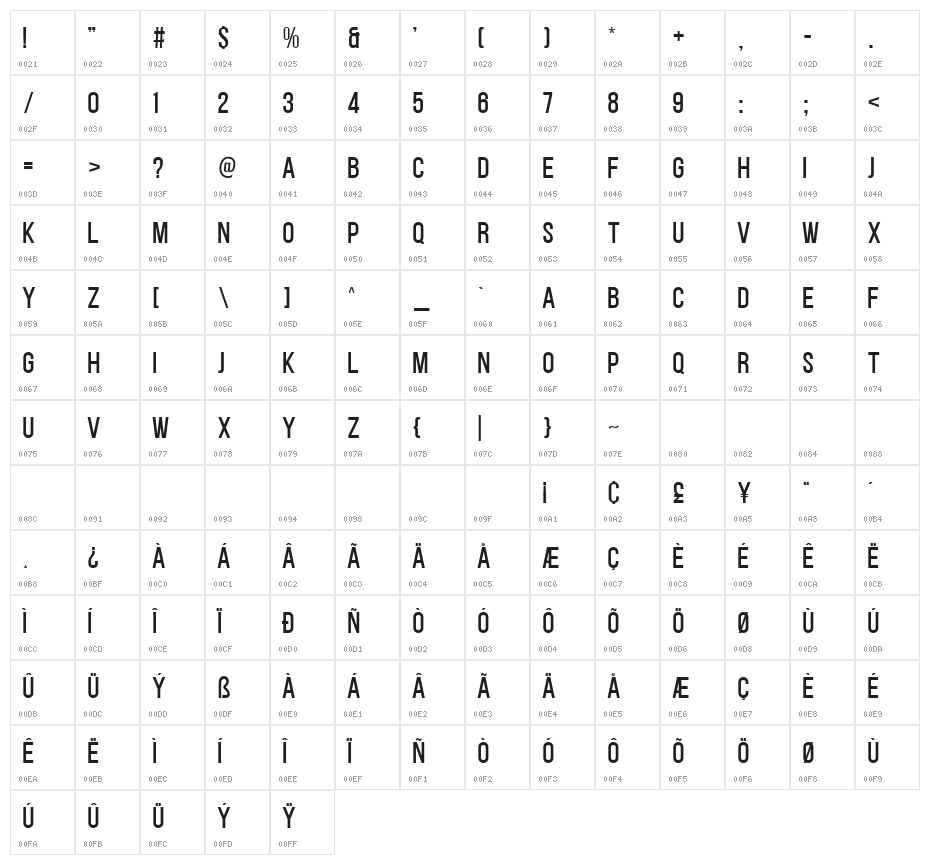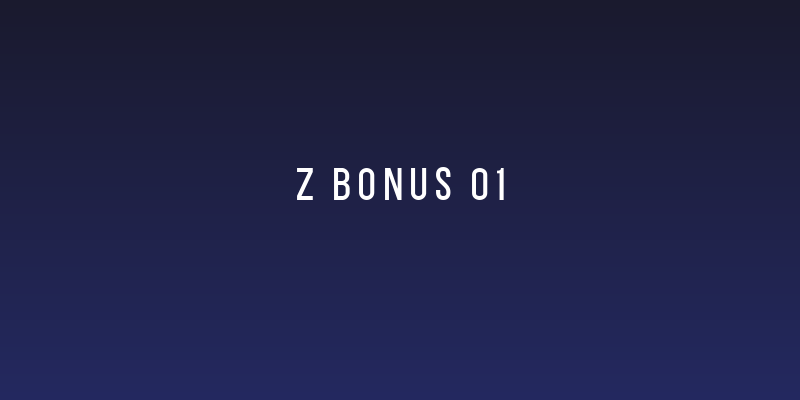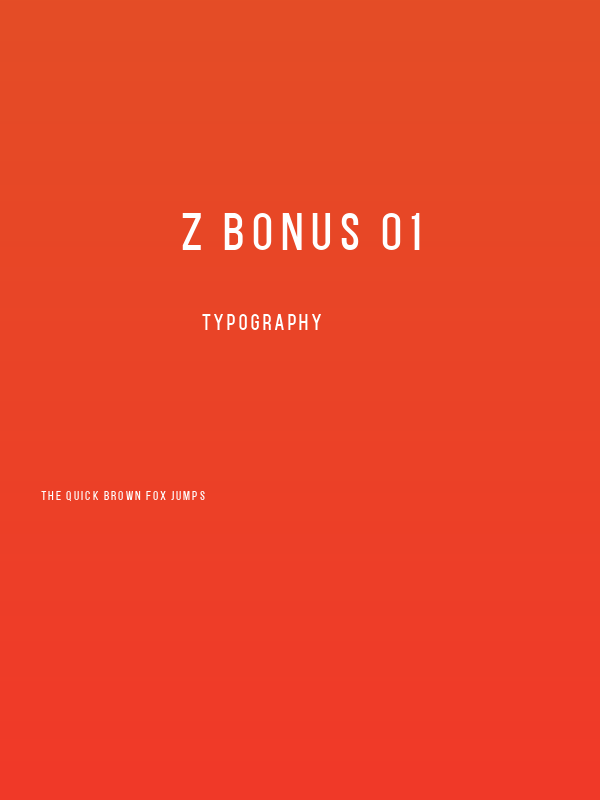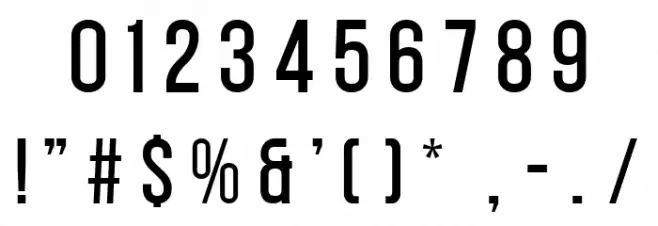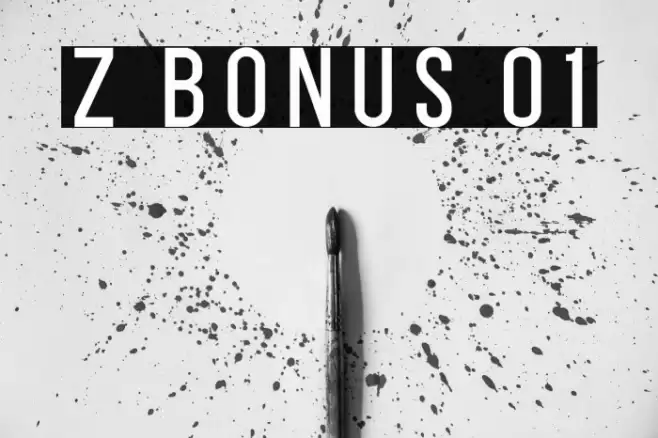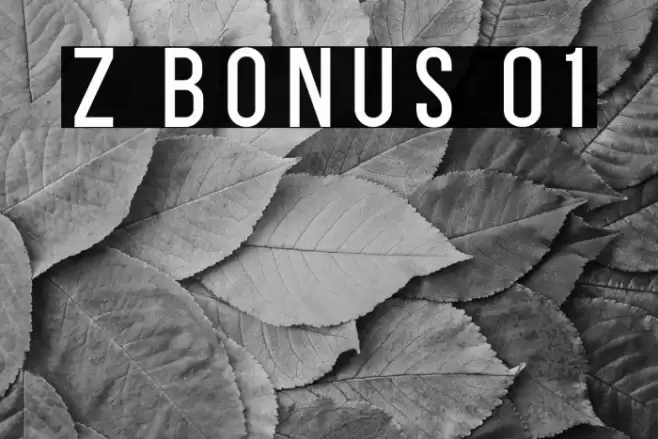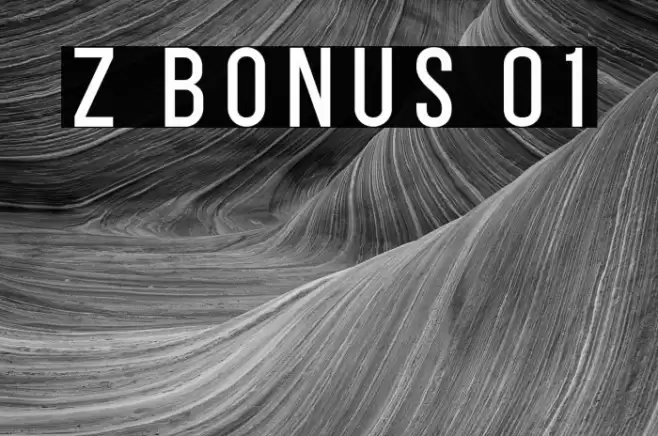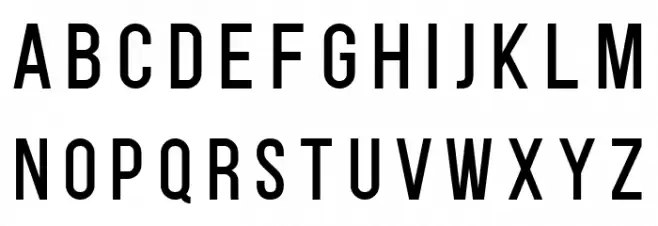
Z BONUS 01 Font
| 用途 | Headlines, Logos, Branding |
| おすすめプロジェクト | Ideal for branding, advertising, headlines, and digital interfaces where clarity and modernity are essential. |